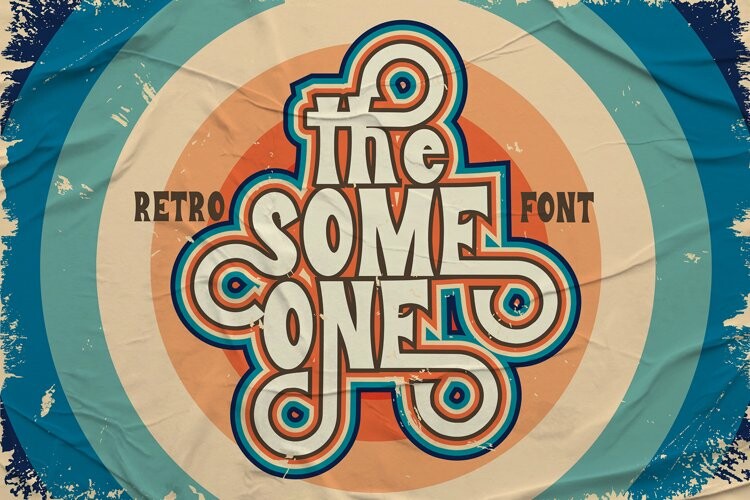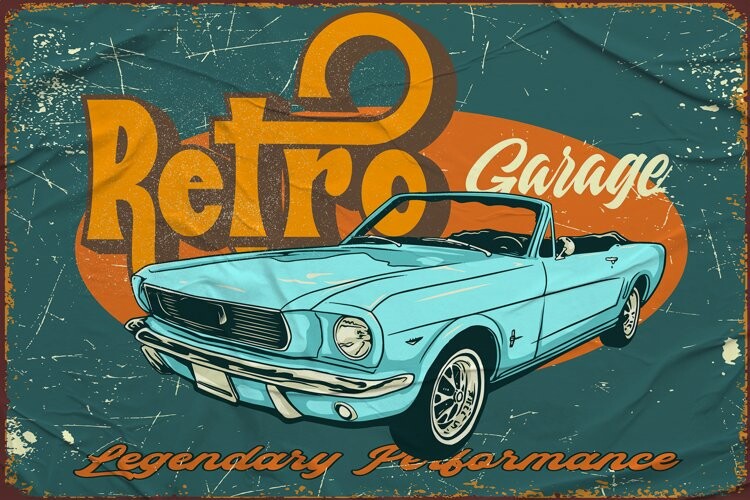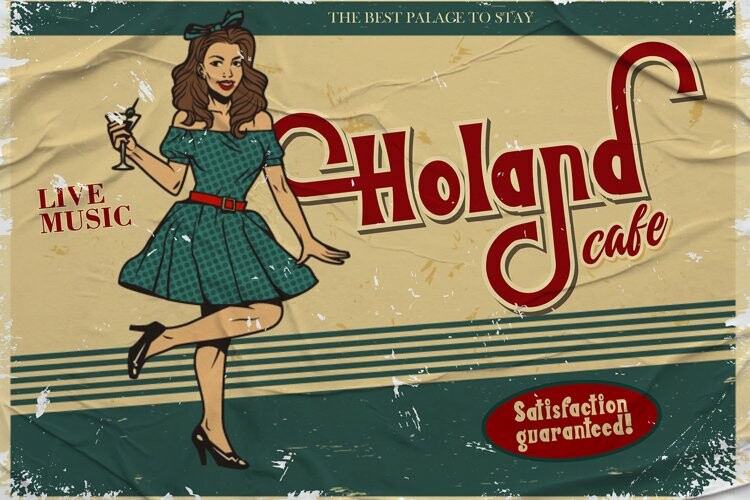
The Some One Font
The Some One Font“The Some One” is a display font with a retro theme, featuring several alternative styles that can help elevate your designs. It is ideal for a wide range of design projects, such as car decals, t-shirt designs, or logos for retro-themed branding. With its unique and stylish appearance, “The Some One” adds a touch of nostalgia and sophistication to your designs. The font’s retro feel makes it perfect for designs that require a vintage or classic look, while the alternative styles allow for flexibility and customization. Whether you’re creating a bold and eye-catching design or a more subtle and understated one, “The Some One” is the font you need to make your designs truly exceptional.